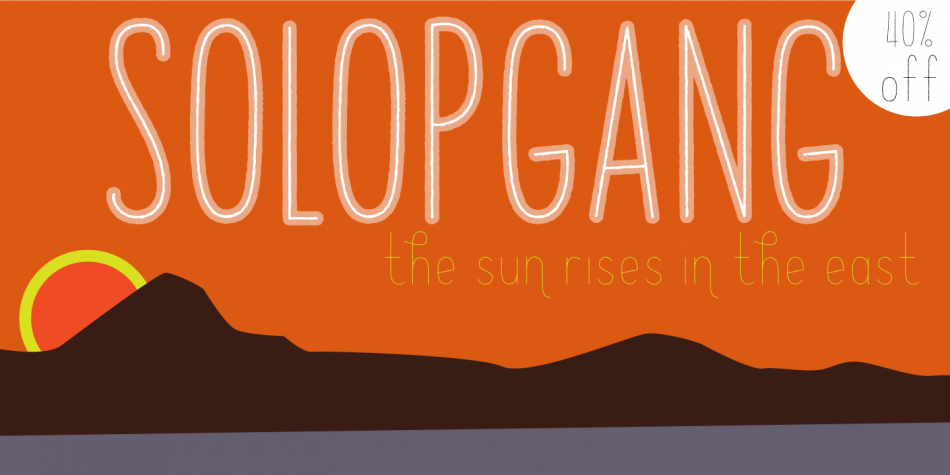
Designed by Jakob Fischer, Solopgang is a hand drawn font family. This typeface has three styles and was published by Pizzadude.dk.
Solopgang is sunrise in danish